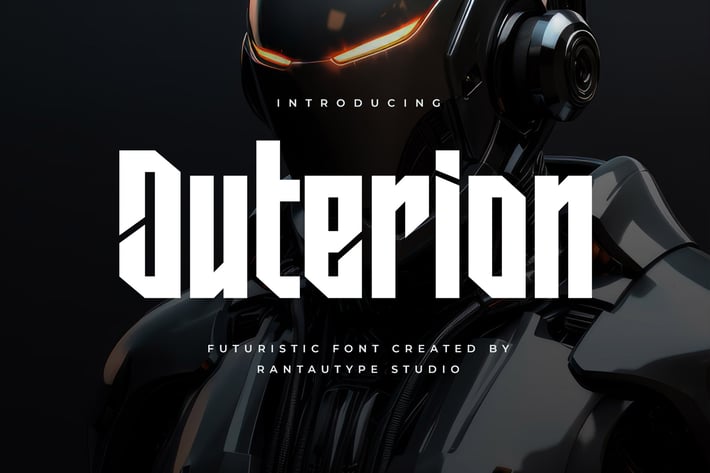
Outerion Futuristic Font
Outerion is futuristic font inspire from technology, game and sport. Outerion come with modern and sporty shape to make design project more stand out.
Alternate and Ligature